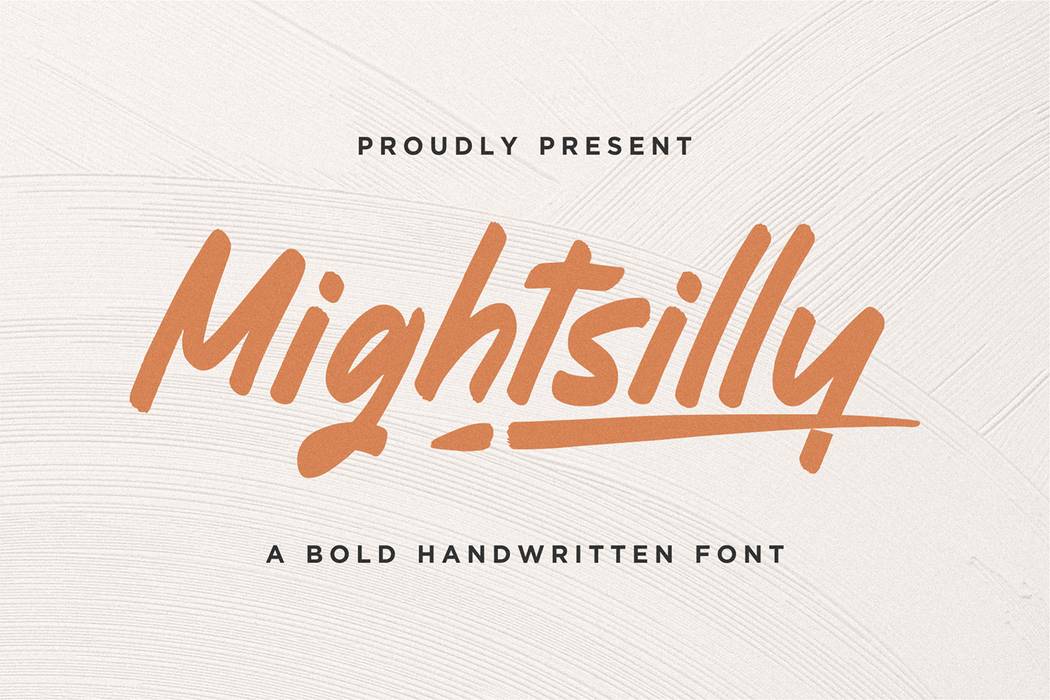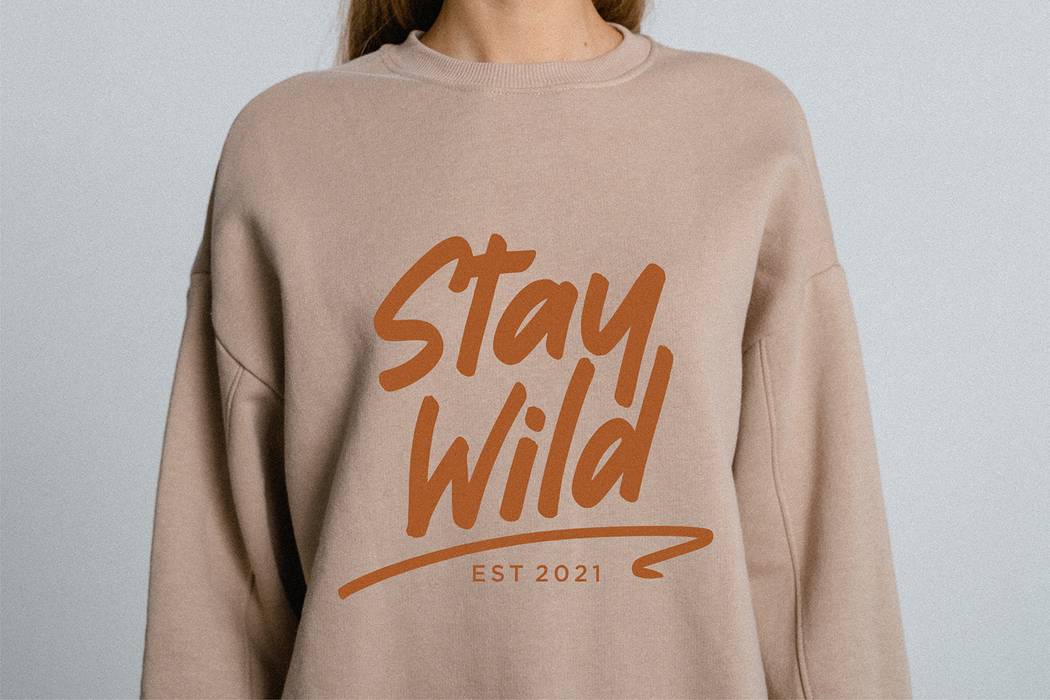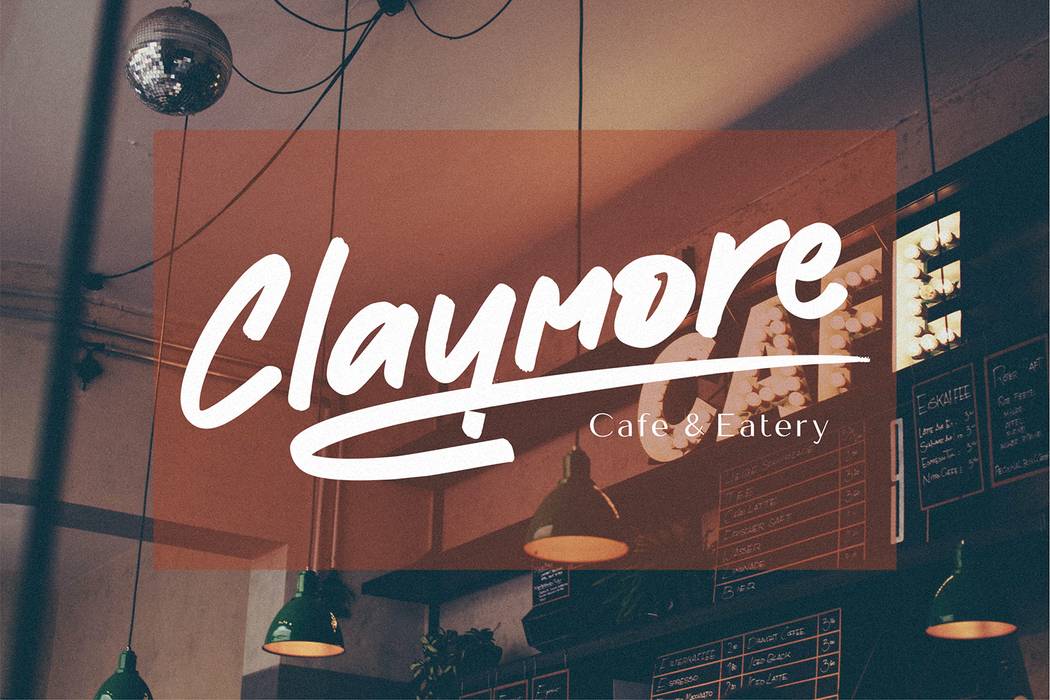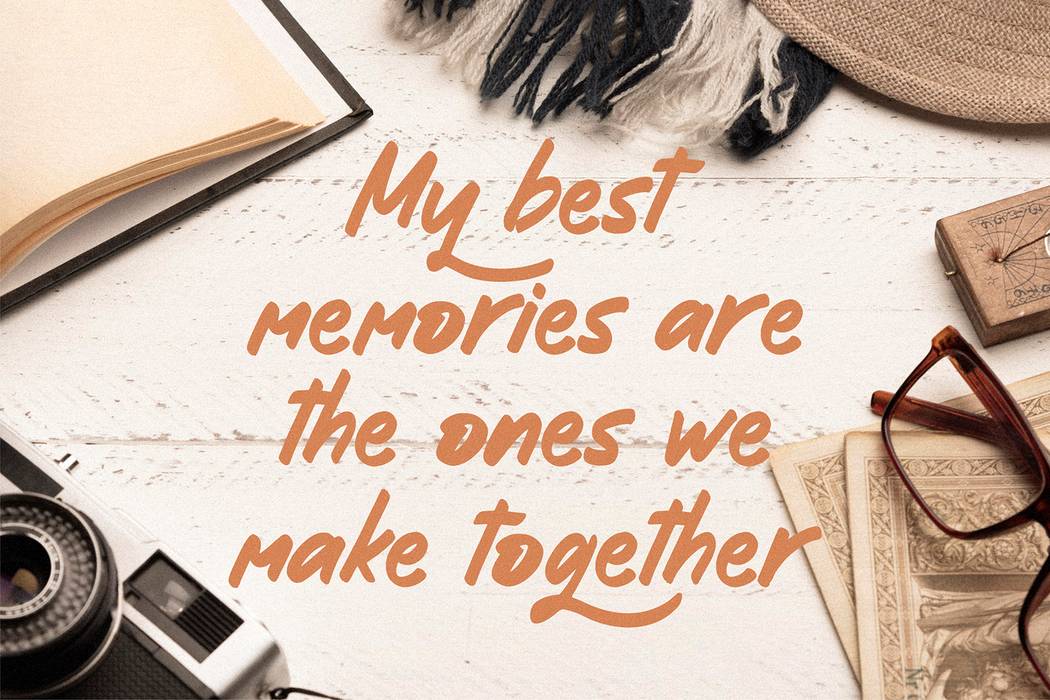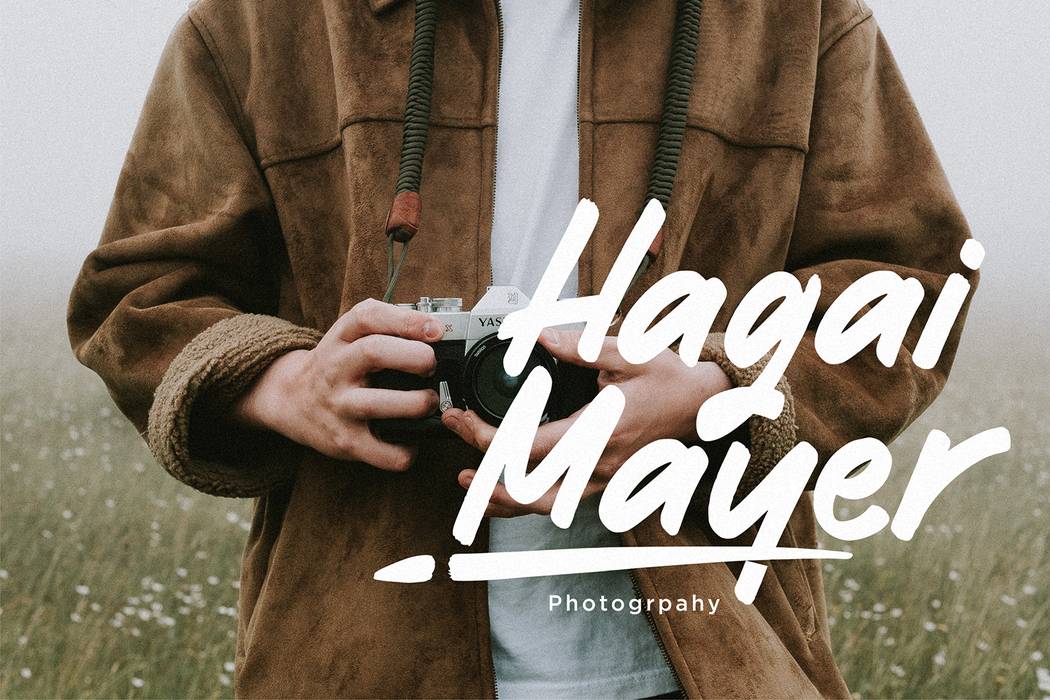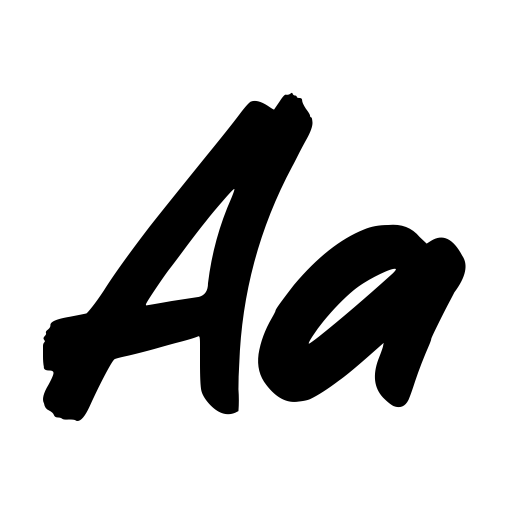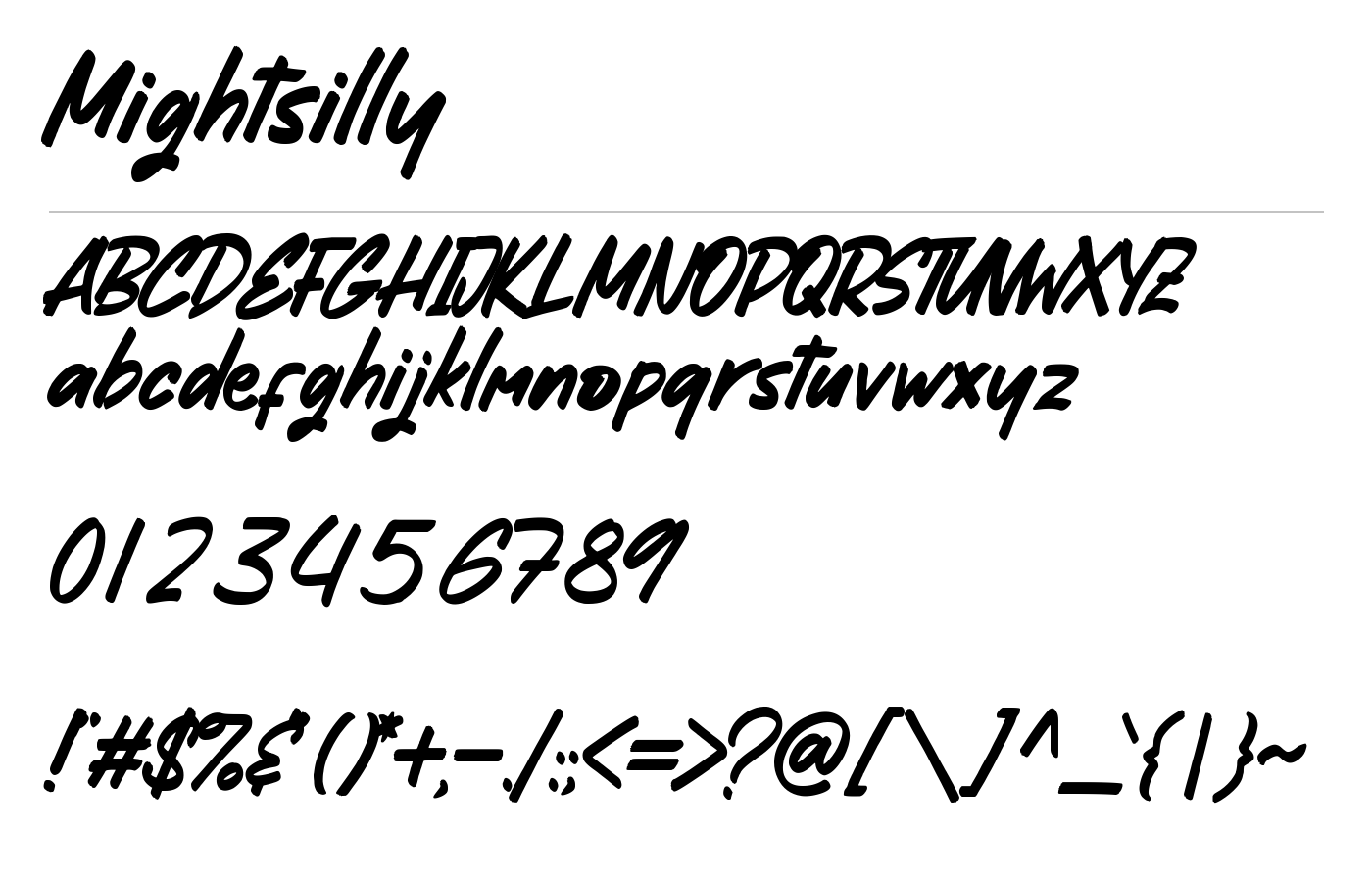
Mightsilly is a lively, bold script font with a casual, handwritten feel that combines playful energy with clear readability. Its moderately high x-height and dynamic stroke contrast give it a friendly yet confident personality, making it ideal for creative projects, branding, and informal headlines that need a personal touch. This font works well in logos, posters, and social media graphics where a fun, approachable style is desired.
Mightsilly Font
About Mightsilly Font